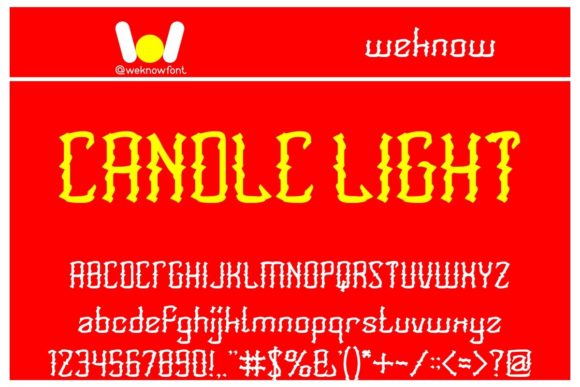
The Warm Glow of Candle Light Font: A Designer’s New Best Friend
I’ll never forget the time I was working on a logo design project for a cozy candle shop. I had spent hours brainstorming ideas, but nothing seemed quite right. The client’s request was simple: create a warm and inviting brand identity that would make their customers feel like they’re walking into a peaceful retreat. But as I scrolled through my font library, I just couldn’t find the perfect fit. That was when I stumbled upon Candle Light Font, and let me tell you, it was love at first sight! ✨
So, what makes Candle Light Font so special? Here’s the lowdown:
- ✅ Elegant and sophisticated, yet playful and whimsical
- ✅ Perfect for headlines, logos, and titles
- ✅ Works beautifully in a variety of design contexts, from corporate identity to movie posters
- ✅ Highly legible, even at smaller sizes
Of course, no font is perfect, and Candle Light has a few quirks to keep in mind:
- ⚠️ Some users may find the font a bit too ornate for certain projects
- ⚠️ Limited use of lowercase letters, which may be a consideration for body text
- 🤔 May not be the best choice for very small text sizes or low-resolution images
- Experiment with OpenType features like ligatures and stylistic alternates to add some extra flair
- Explore the font’s glyphs and stylistic alternates to add some visual interest
The Story Behind Candle Light Font
Candle Light Font was designed by a team of creatives who wanted to capture the warm, cozy glow of candlelight in a digital font. Inspired by the soft flicker of flames and the elegance of traditional candle-making, they crafted a font that’s both sophisticated and inviting. Whether you’re designing a logo, a poster, or a social media graphic, Candle Light Font is the perfect choice for adding a touch of warmth and personality to your designs.
| Is Candle Light Font suitable for body text? | While Candle Light Font is highly legible, it may not be the best choice for large blocks of body text due to its ornate style. |